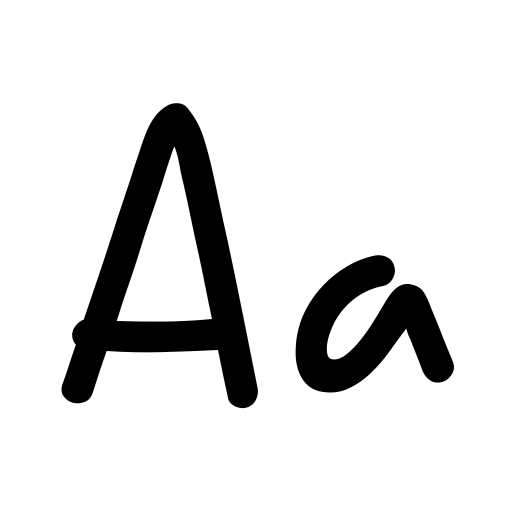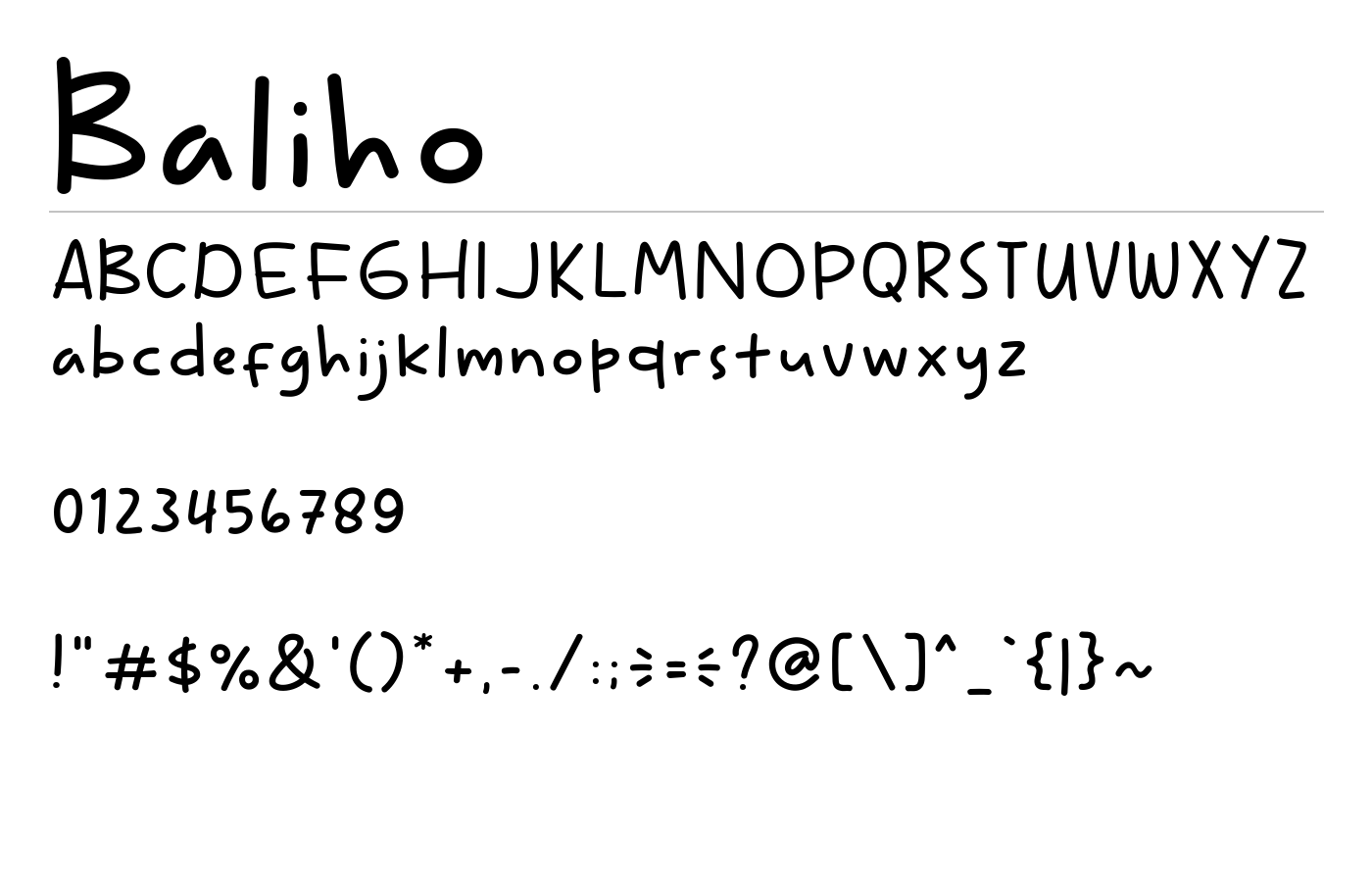
Baliho is a playful and casual handwritten sans serif font with a friendly and approachable feel. Its irregular strokes and rounded shapes create an informal yet clear style, making it ideal for personal projects, children's materials, or creative branding. This font works well where a relaxed and inviting tone is desired, adding warmth and personality without sacrificing readability.
Baliho Font
About Baliho Font